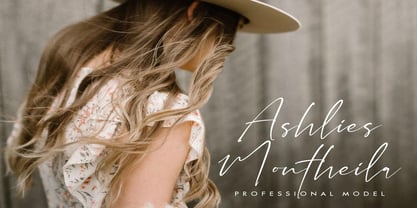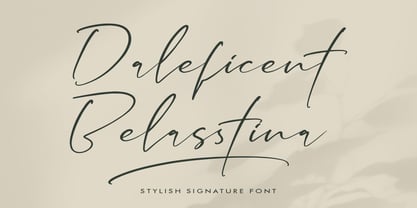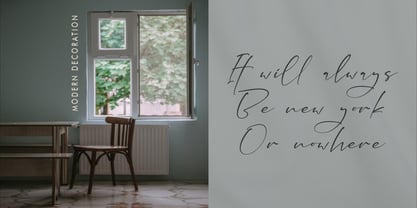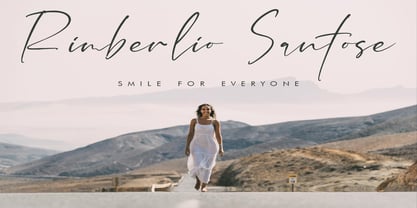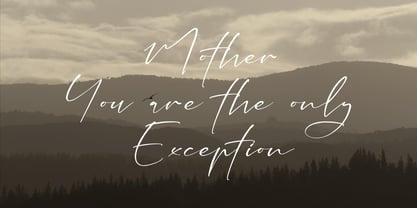
Daleficent Belasstina
The Daleficent Belasstina Font Family was designed by Heru Utama Putra and published by Letterena Studios. Daleficent Belasstina contains 2 styles and family package options.
Daleficent Belasstina – Stylish Signature Font, from Letterena, is a Luxury Script font, suitable for any projects such as: logos, branding projects, homeware designs, product packaging, mugs, quotes, posters, shopping bags, t-shirts, book covers, name card, invitation cards, greeting cards, label, photography, watermark, special events, and all your other luxury and beautiful projects that need a Luxury Script taste.